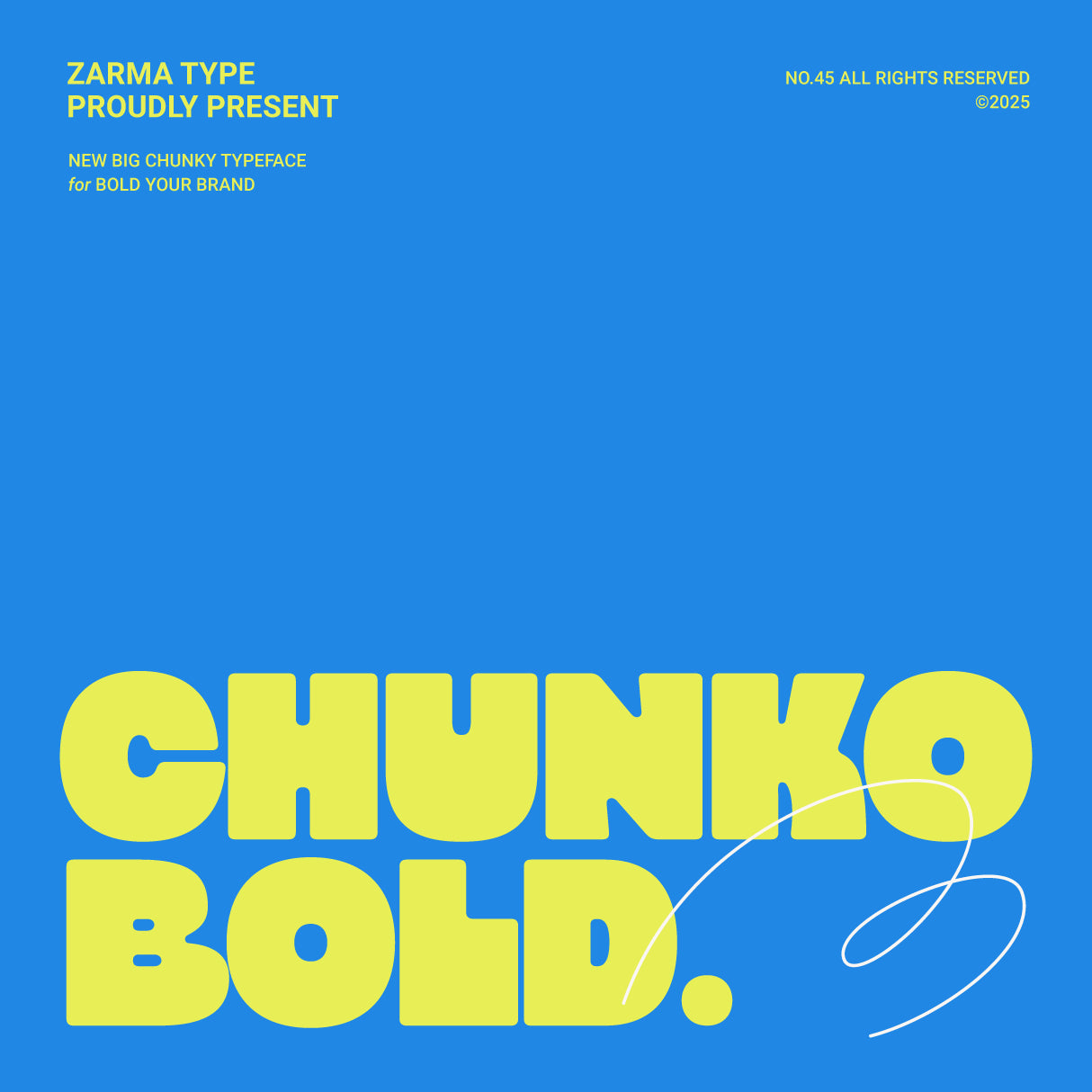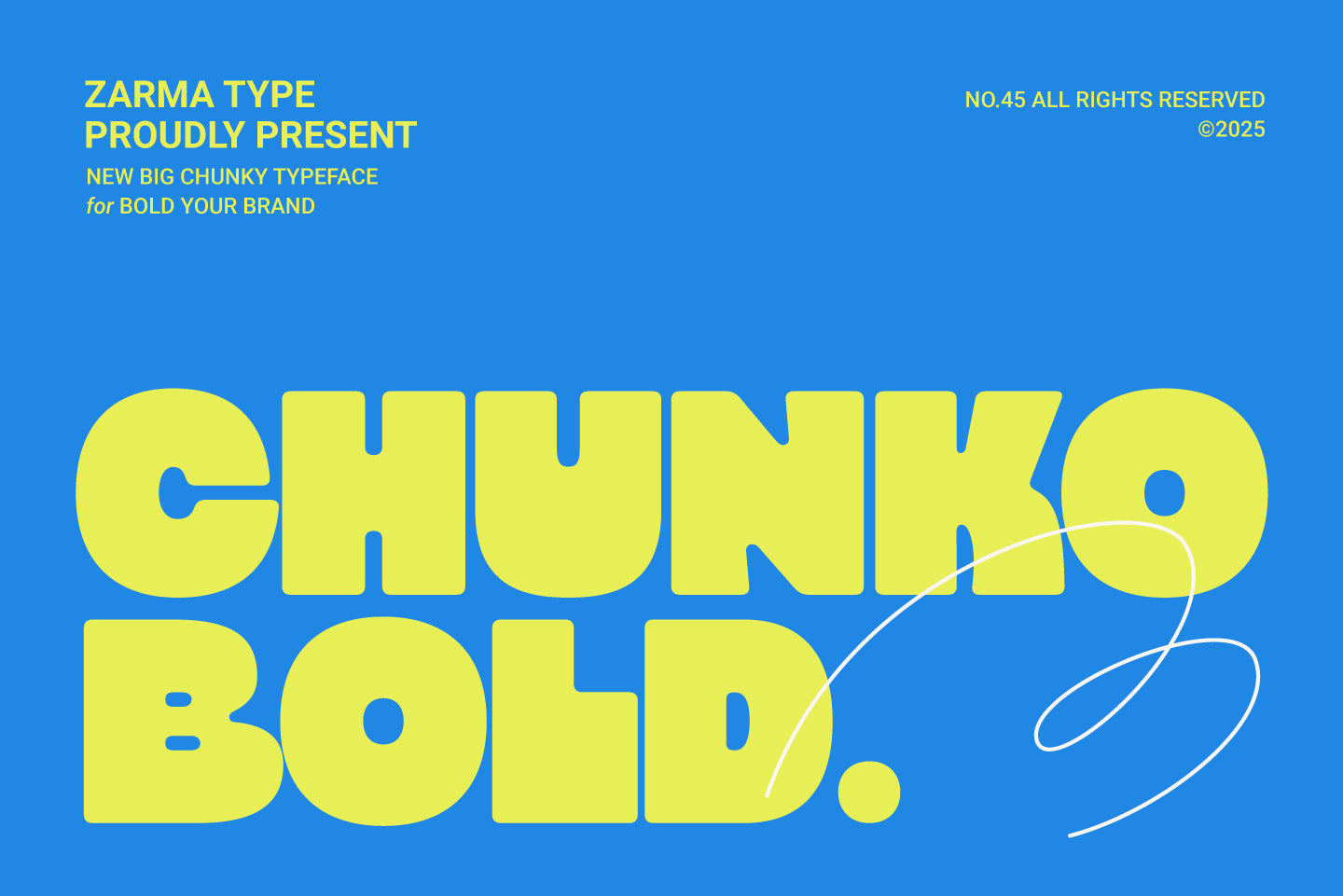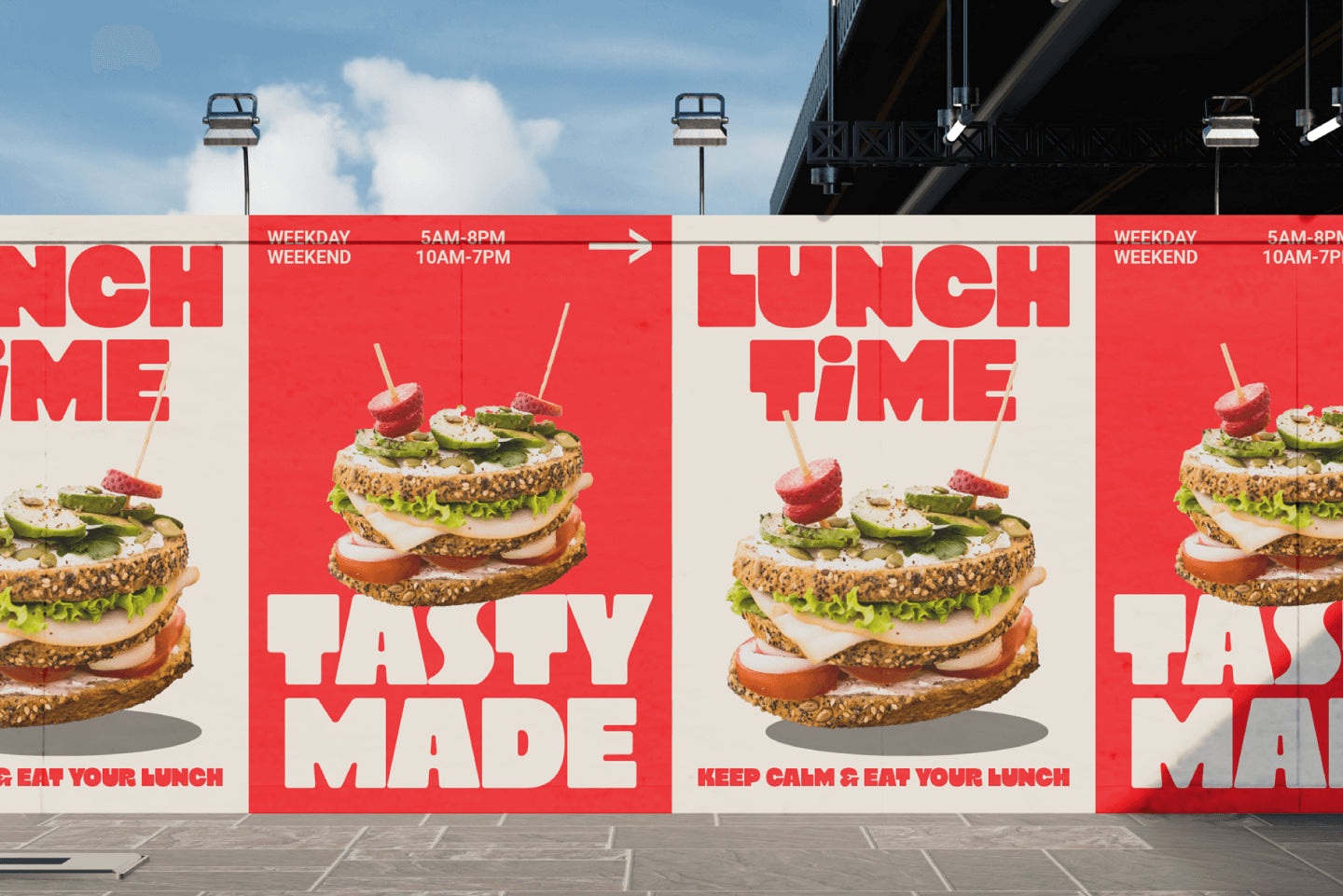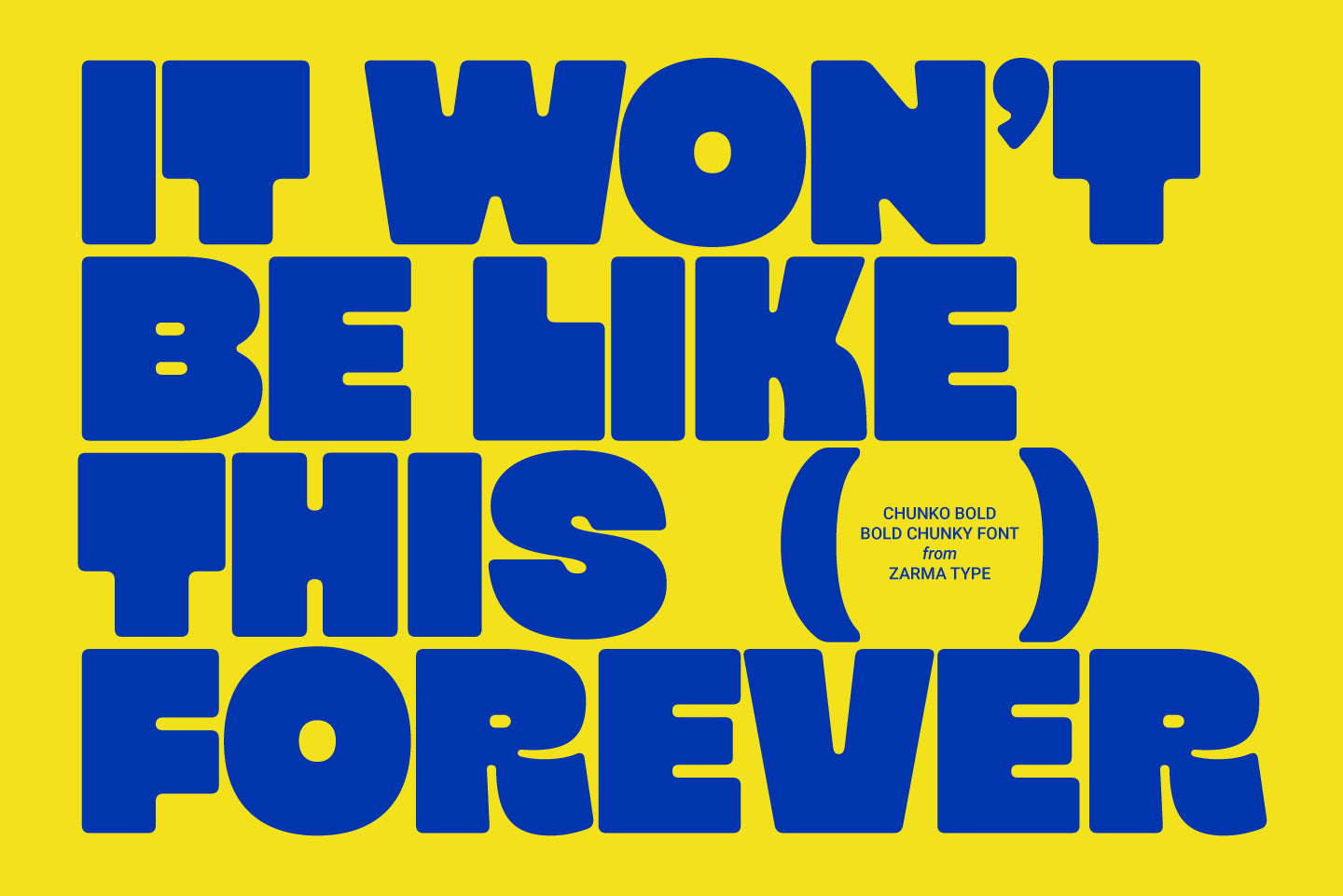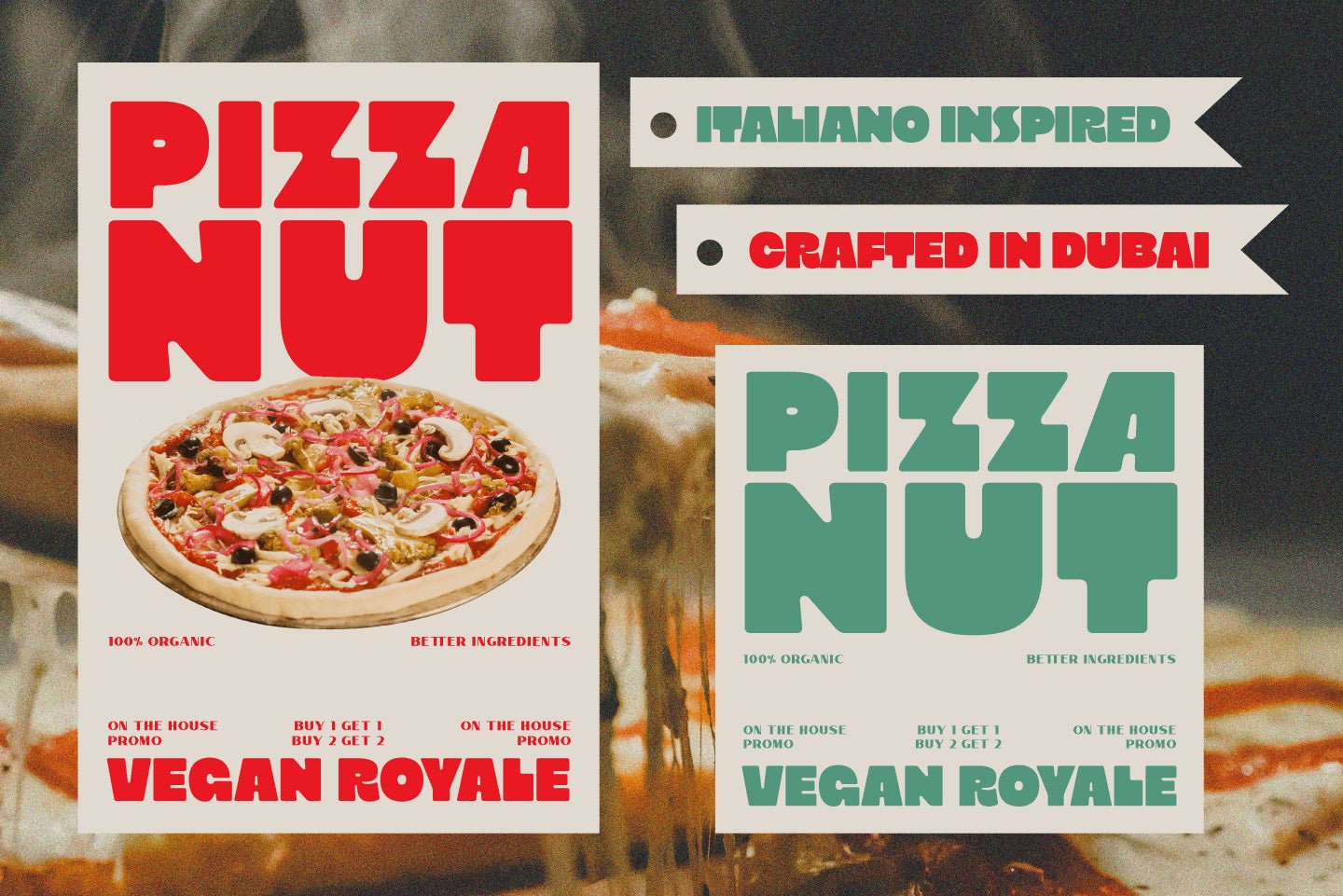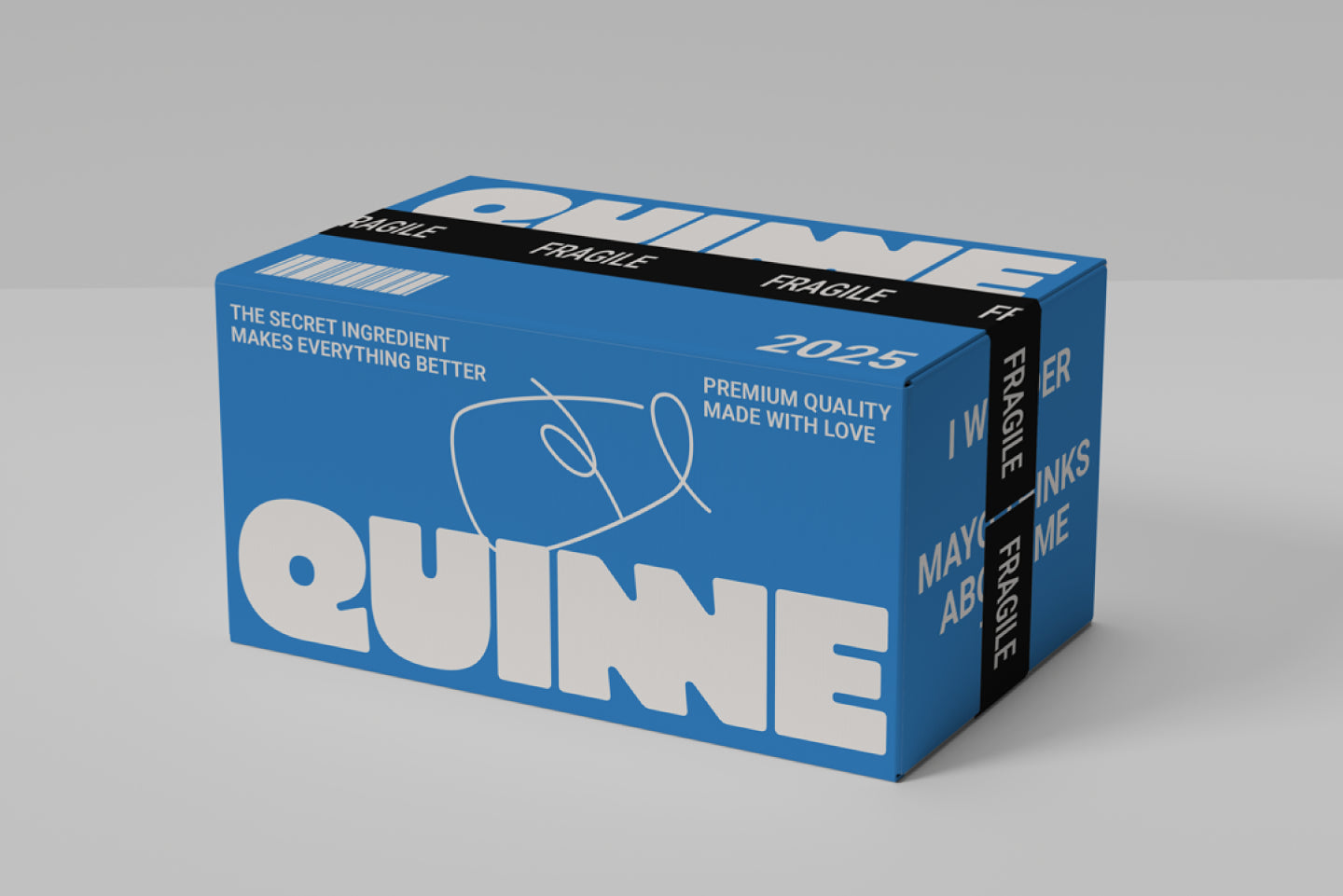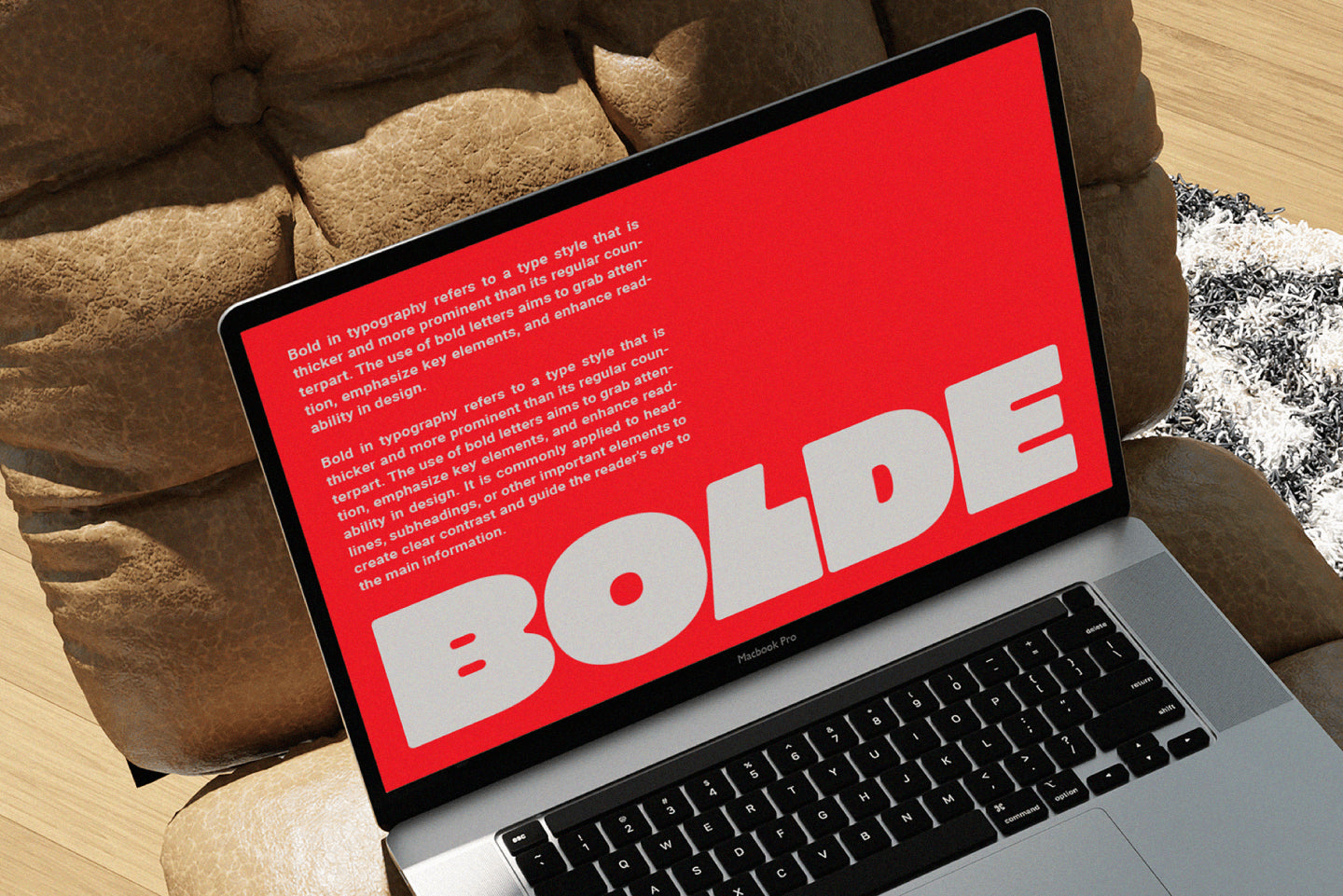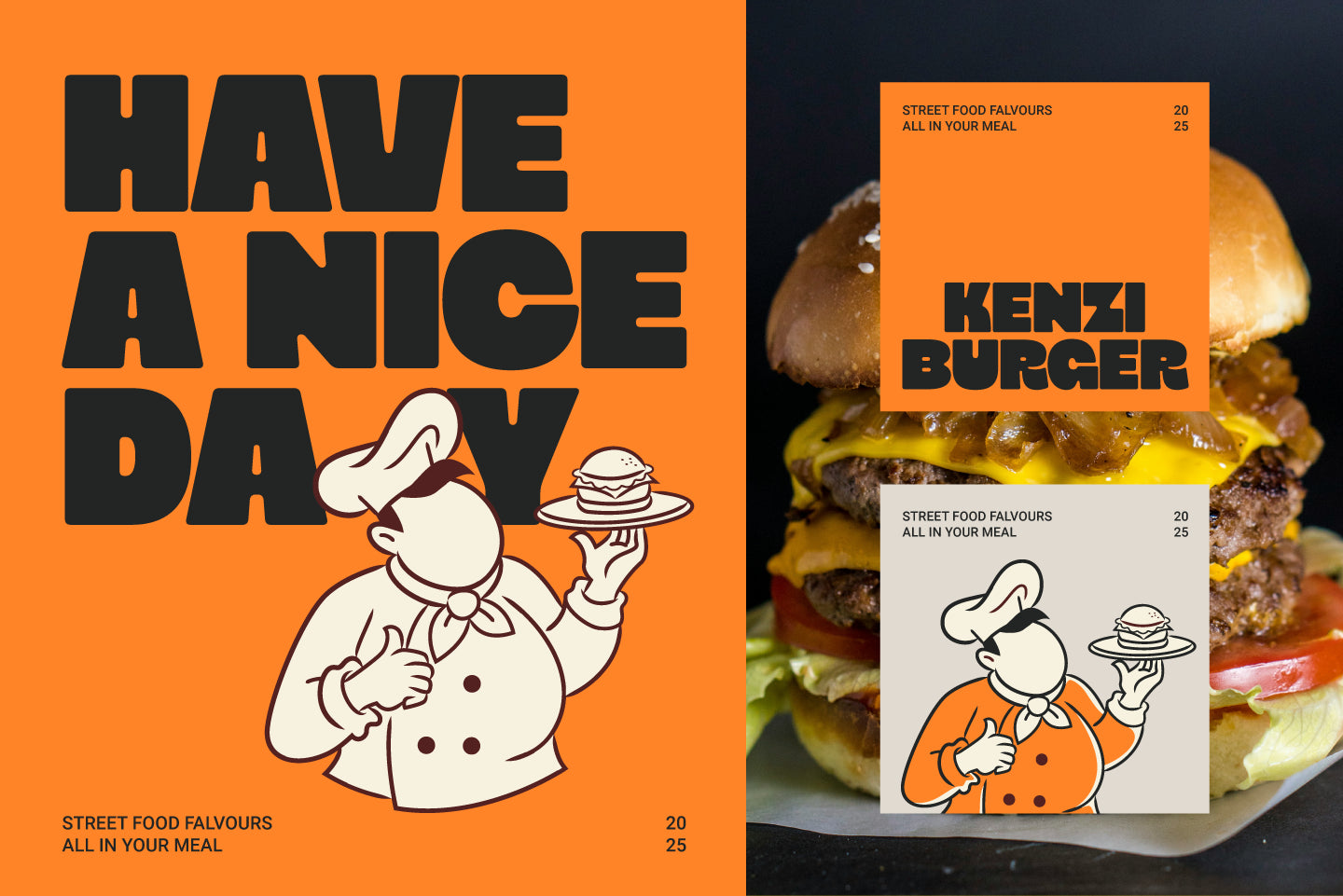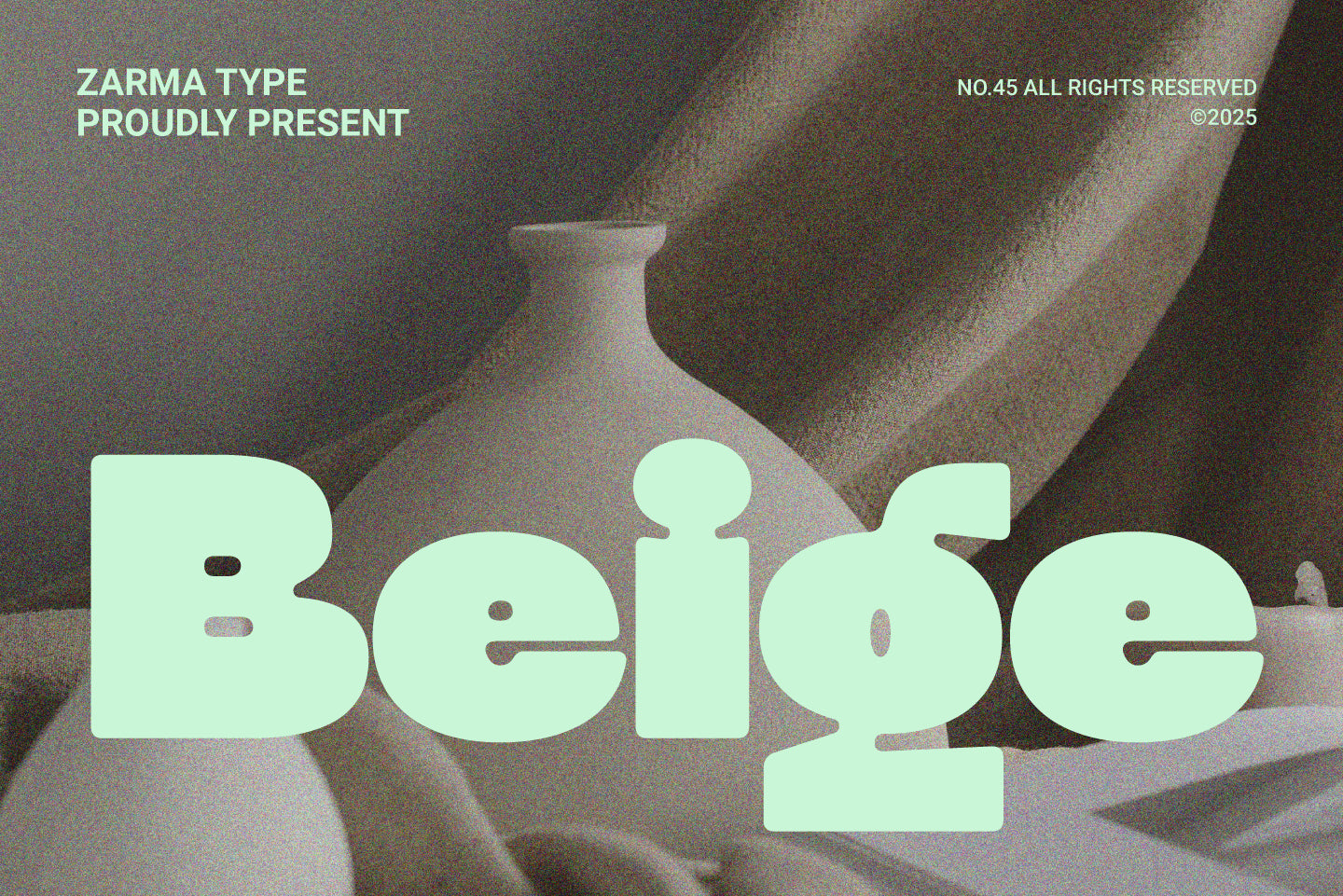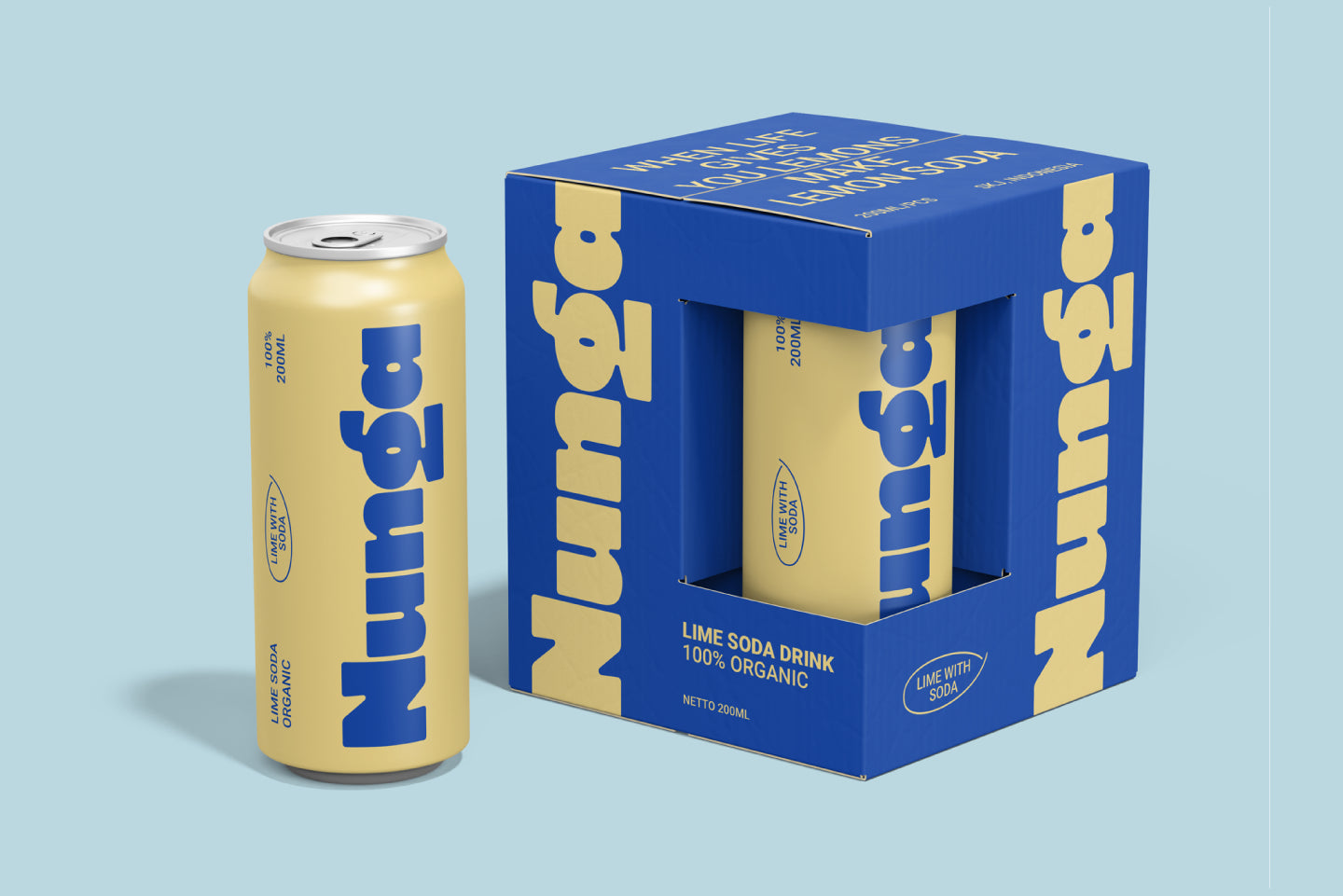
Chunko Bold Font
Chunko Bold is a bold Sans Serif Font and powerful display typeface inspired by the growing trend of bold minimalism. Its chunky geometry, rounded edges, and confident proportions create a clean yet playful personality, making it perfect for branding, logos, packaging, editorial layouts, posters, restaurant menus, food and beverage branding, social media graphics, and typography-focused digital content. Designed to make an impact with minimal elements, Chunko Bold brings a fresh contemporary aesthetic while maintaining exceptional readability.
Built for modern designers, Chunko Bold includes Multilingual Support, PUA Encoded Characters, Stylistic Alternates, Standard & Discretionary Ligatures, and a Complete Punctuation Set for maximum creative flexibility. Whether you're creating bold minimalist identities or clean, type-driven layouts, Chunko Bold delivers the perfect balance of strength, simplicity, and modern design.
Chunko Bold is a bold Sans Serif font featuring chunky geometry and rounded edges, designed for clarity and readability. It includes multilingual support, PUA encoded characters, stylistic alternates, ligatures, and a complete punctuation set, making it suitable for a variety of design applications.